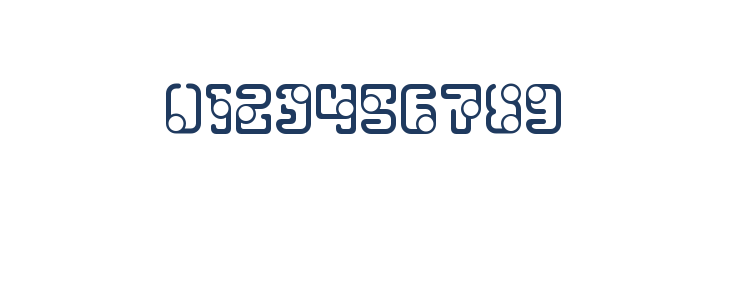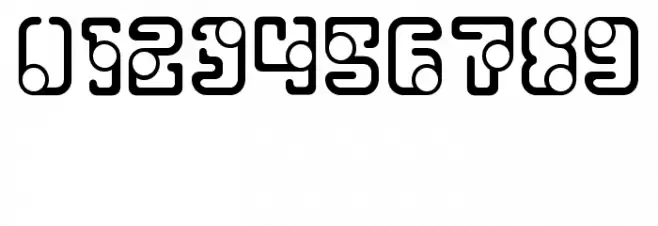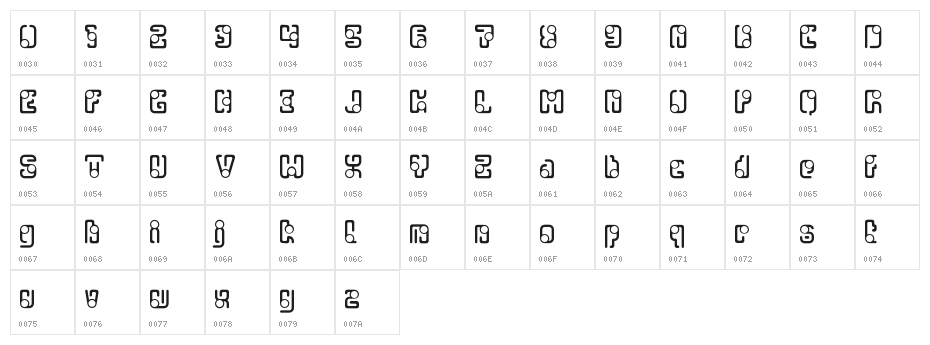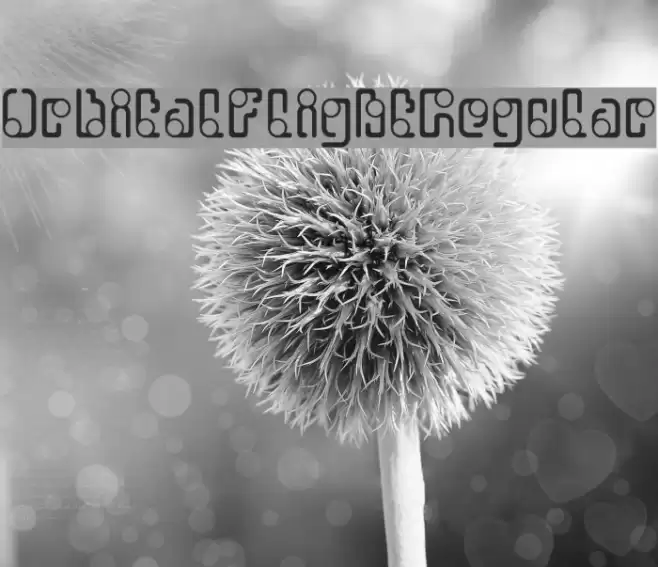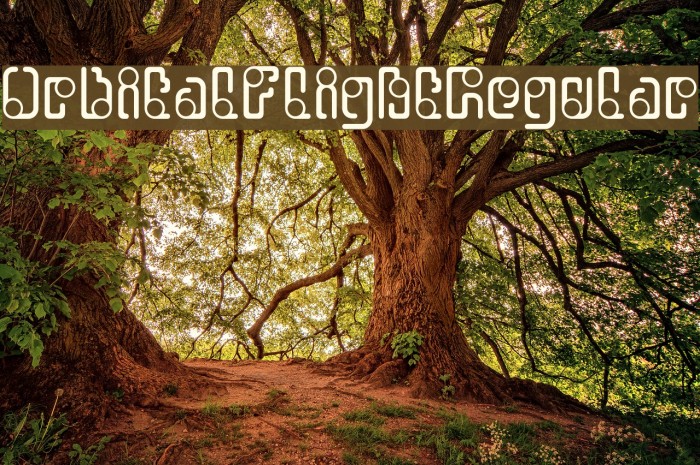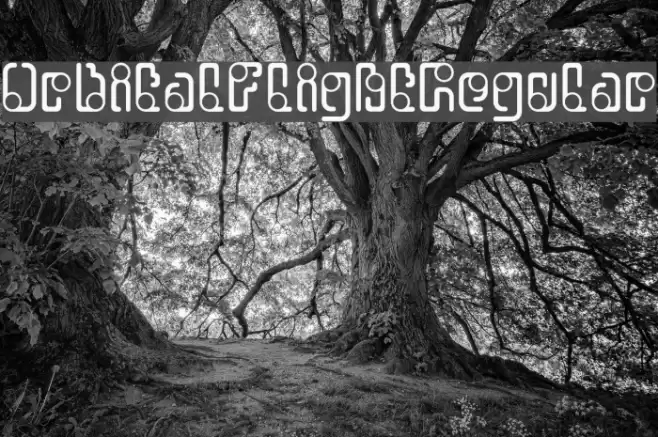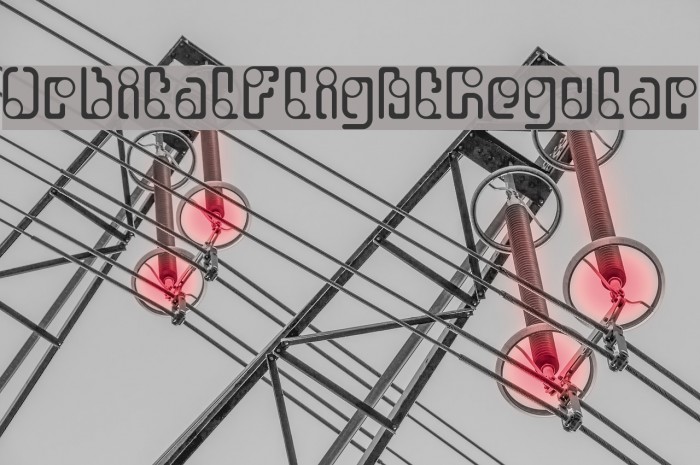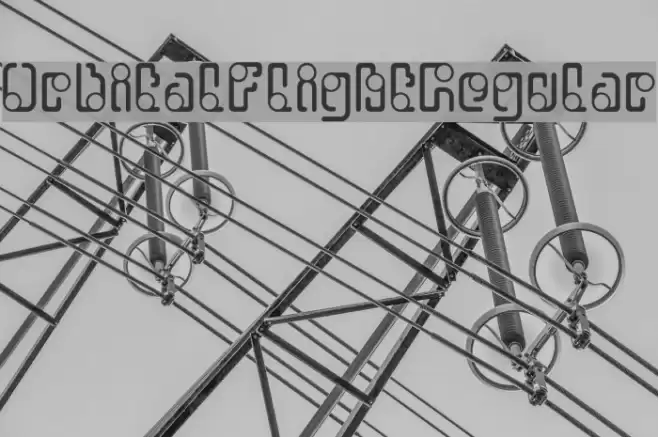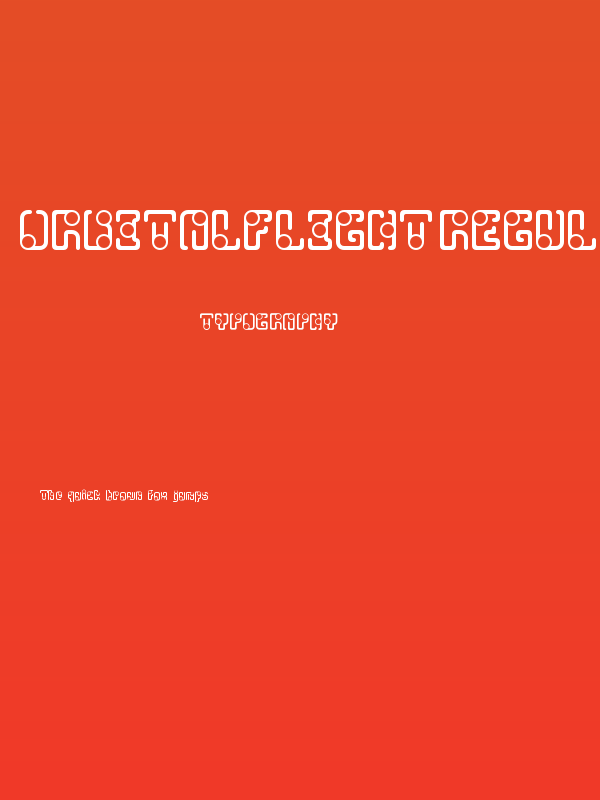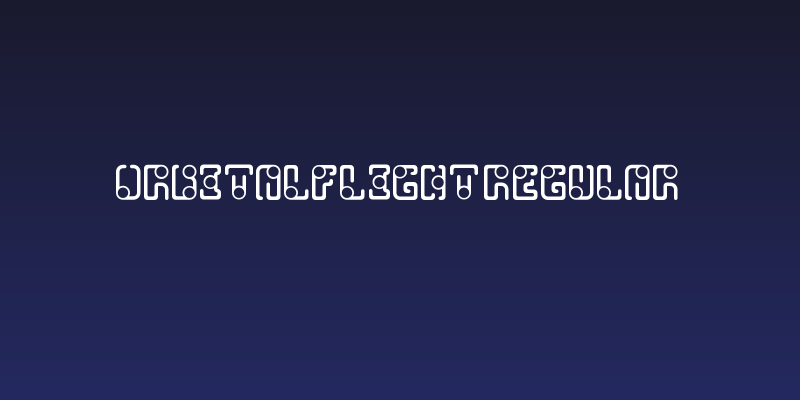
OrbitalFlight-Regular Font
OrbitalFlight-Regular Description
This font features a futuristic and geometric design, characterized by its bold, rounded shapes and interconnected lines. The letters are constructed with a consistent stroke width, creating a uniform appearance across all characters. The design incorporates circular elements and open spaces, giving it a modern and technological feel. The font's unique style makes it stand out, with each character maintaining a balance between form and function. It is particularly suitable for projects that require a contemporary and innovative aesthetic.